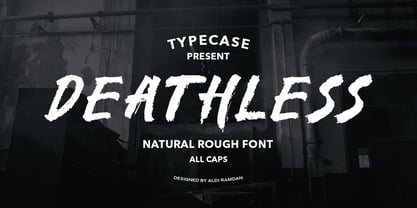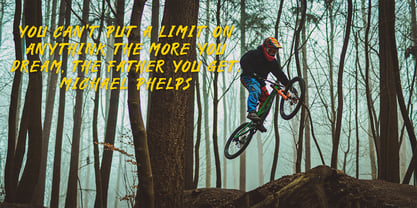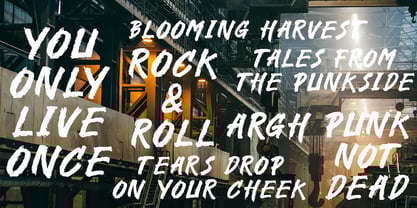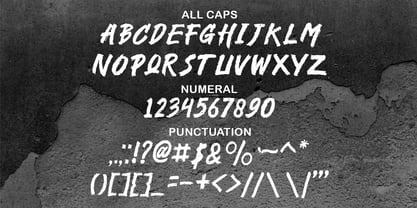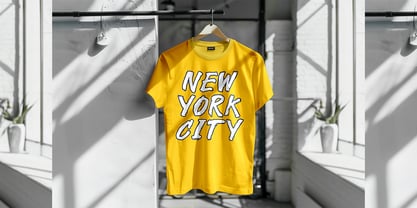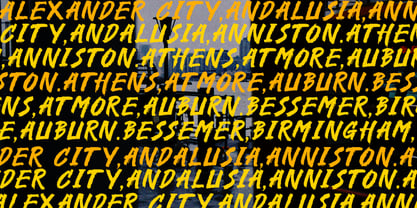
Deathless
by TypeCase.std
The Deathless Font Family was designed by ALDI RAMDAN and published by TypeCase.std. Deathless contains 1 styles.
Deathless is a striking modern brush font known for its distinctive irregular baseline and contemporary design. This handcrafted typeface exudes personality, making it perfect for eye-catching titles across various applications, including fashion, book covers, stationery, inspirational quotes, branding projects, logos, T-shirts, packaging, posters, and more. Its versatility is enhanced by uppercase letters, multilingual support, and a wide range of punctuation marks, ensuring it meets the diverse needs of designers. With its unique flair and functional usability, this font is an ideal choice for creative professionals looking to make a bold statement in their work.
Designers: ALDI RAMDAN
Publisher: TypeCase.std
Foundry: TypeCase.std
Design Owner: TypeCase.std